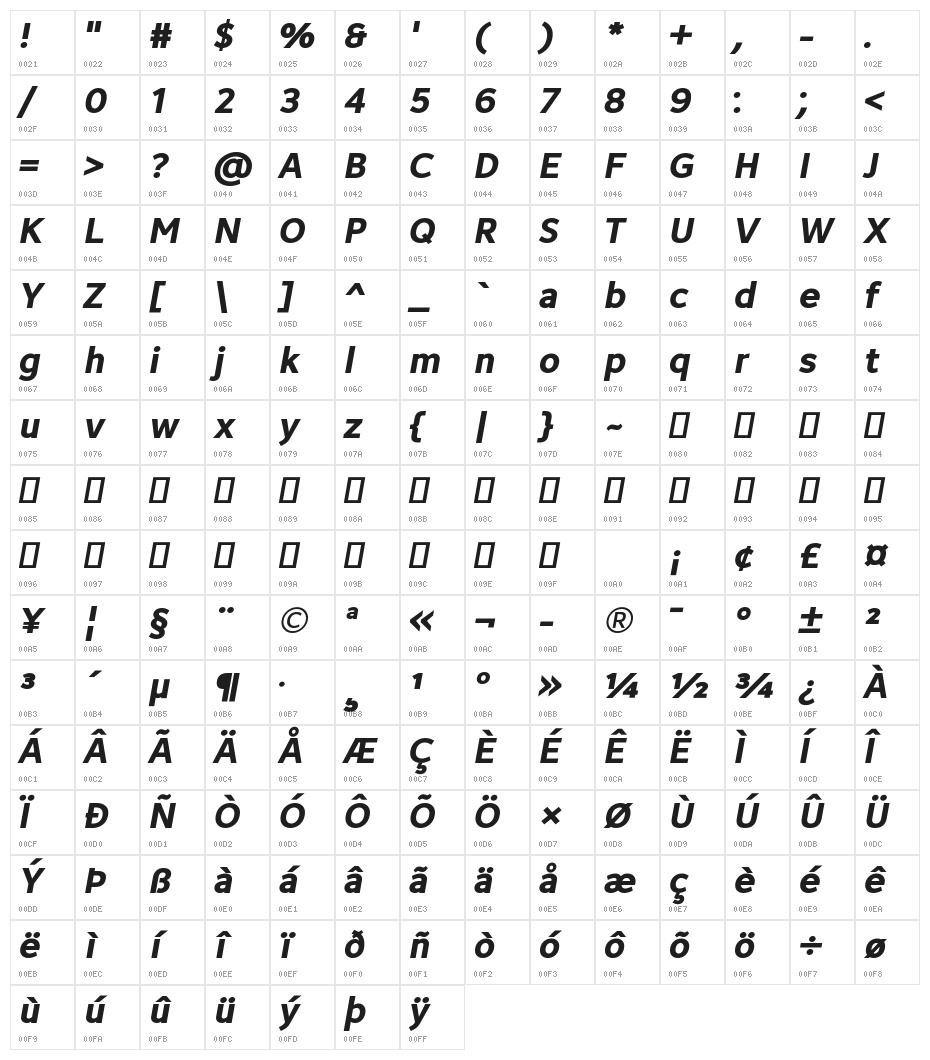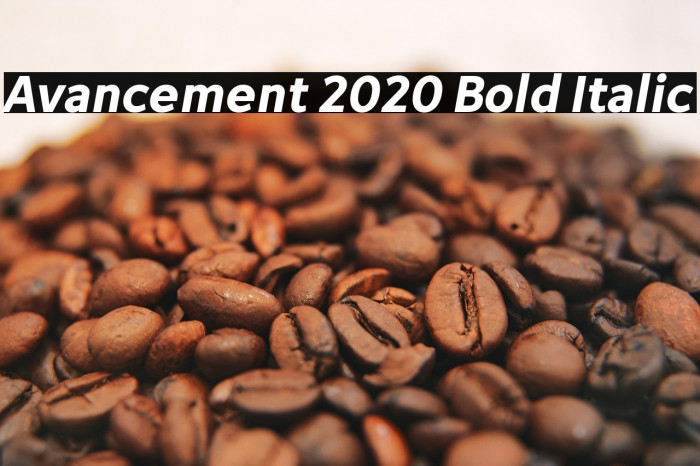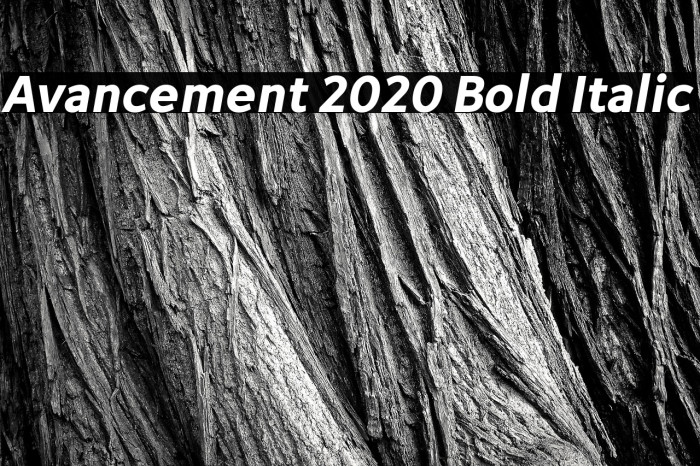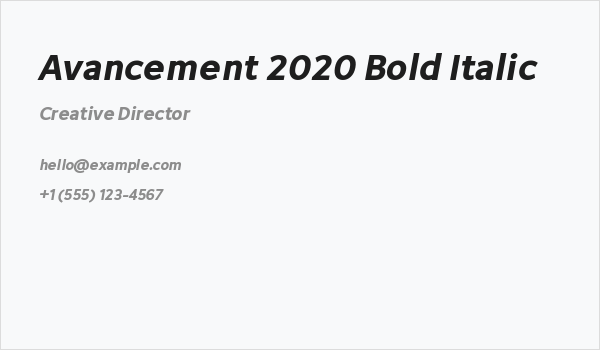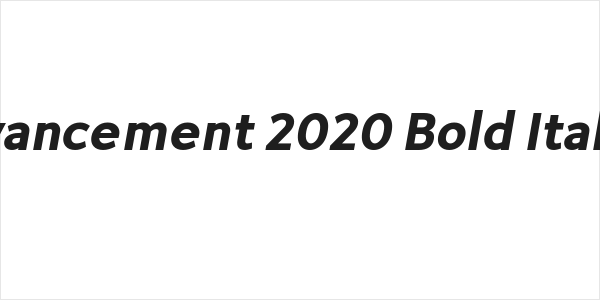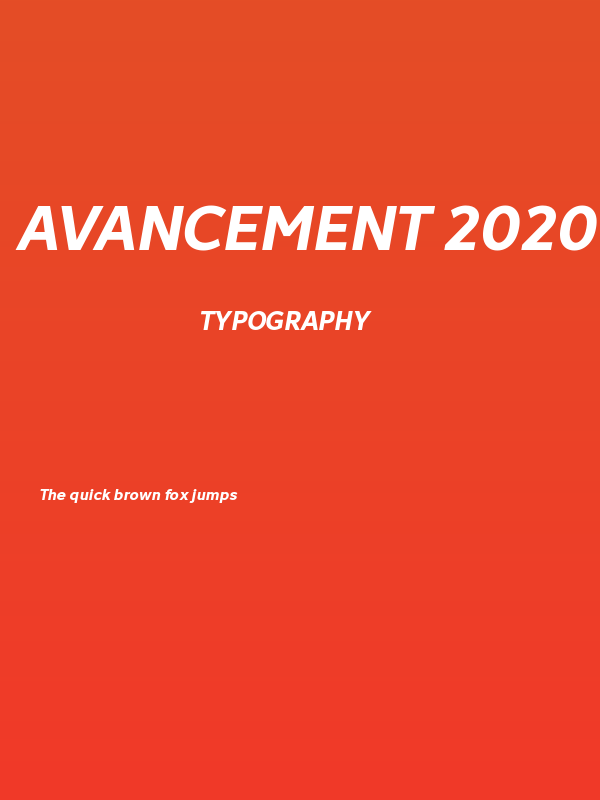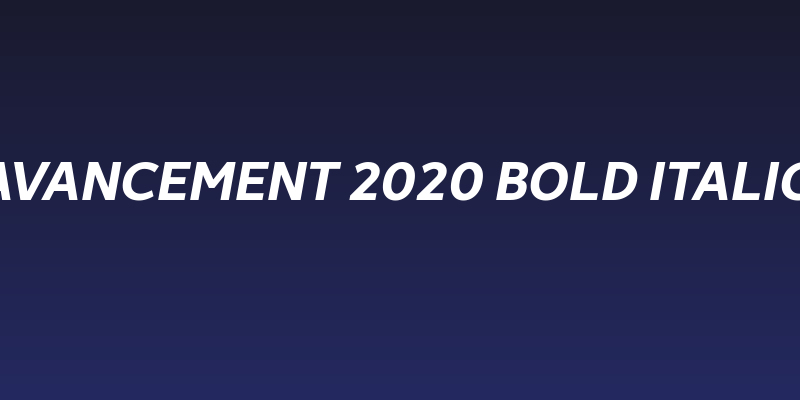
Avancement 2020 Bold Italic Font
Avancement 2020 Bold Italic Description
This font features a bold and italic style, offering a dynamic and modern appearance. The characters are slightly slanted, giving a sense of motion and energy. The strokes are thick and consistent, providing a strong visual impact. The uppercase and lowercase letters are well-proportioned, maintaining readability while adding a touch of elegance. The numerals are clear and distinct, making them suitable for various applications. Special characters are included, ensuring versatility in design projects. Overall, this font is ideal for making bold statements and capturing attention.
| Proposed Projects | Ideal for branding, advertising, headlines, and any project requiring a bold, modern look. |